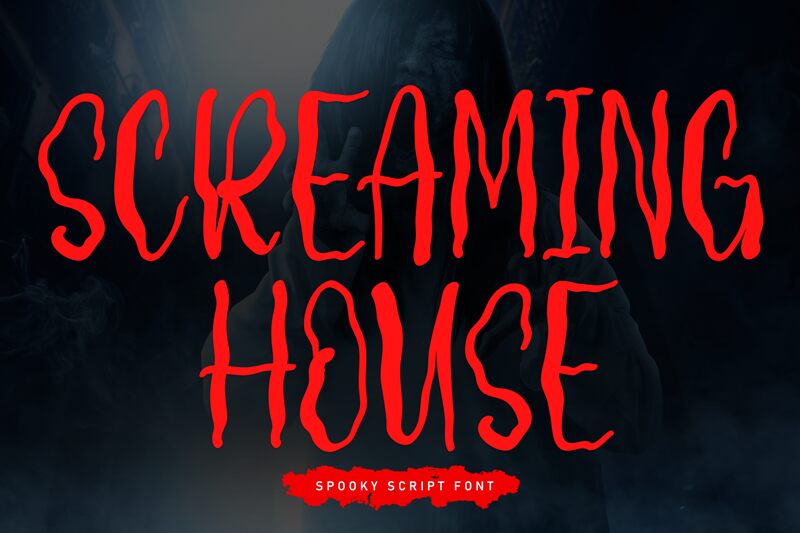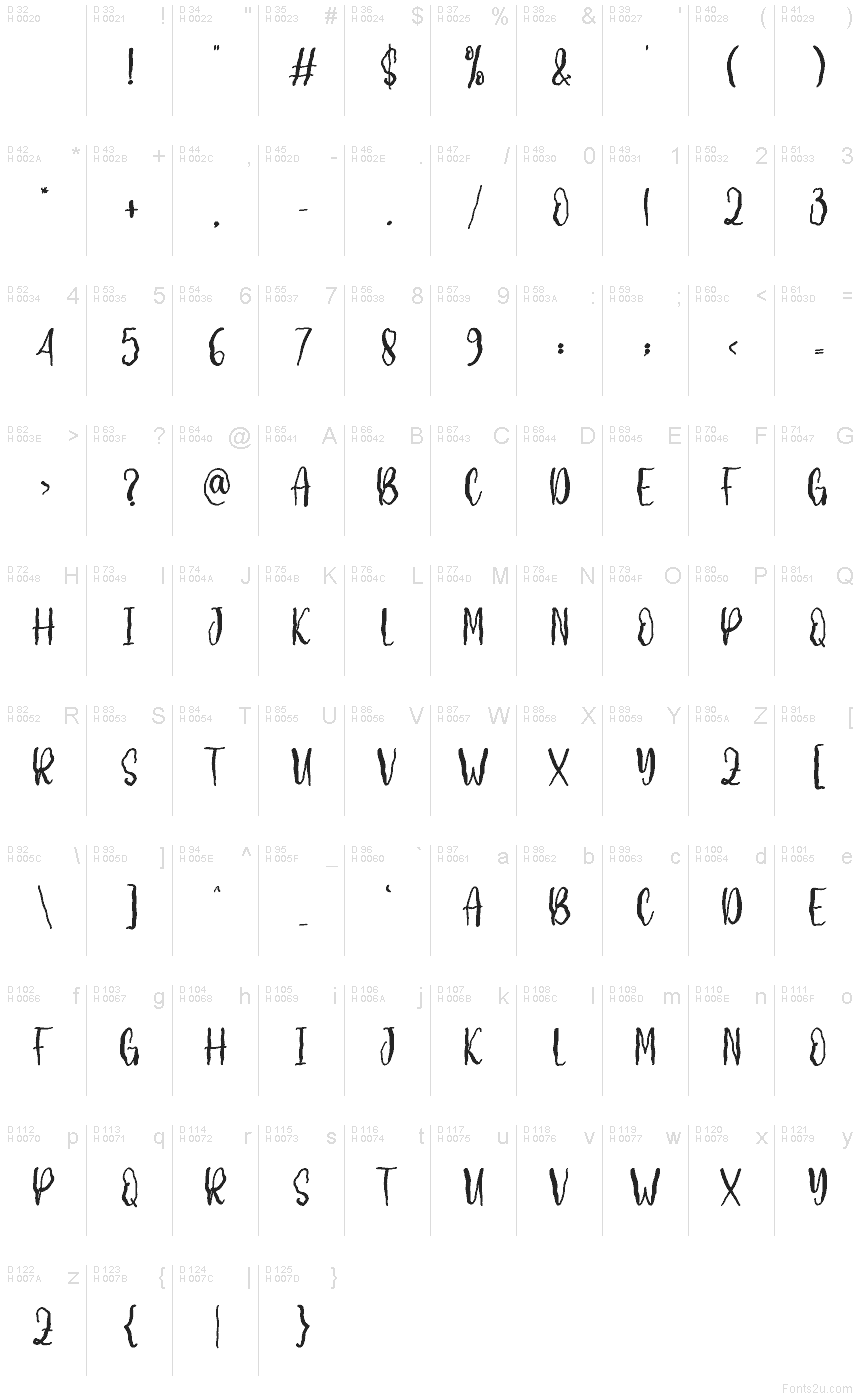
Screaming House
Screaming House font by Andi Moz is a free Halloween display font. Its lanky, twig-like letters wobble with a hand-scrawled energy, and the rough, inky edges feel scratched into a doorframe—just enough grit to raise goosebumps without killing legibility. Tall proportions pack drama into tight spaces, while the jittery rhythm keeps headlines buzzing.
Using Screaming House, you can crank up the mood on haunted house posters, trick-or-treat invites, themed banners, horror podcast covers, event signage, and sticker or candy-bag labels. This free font shines at larger sizes; pair it with a plain, no-nonsense sans for body copy so the eerie texture can take the spotlight.